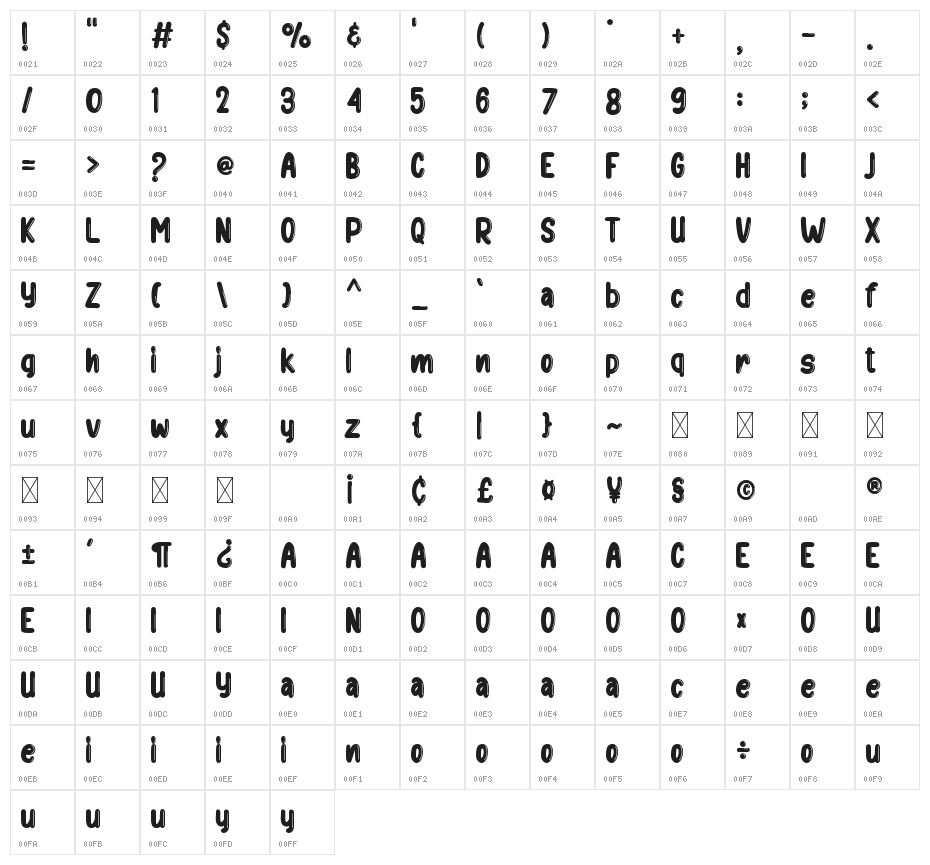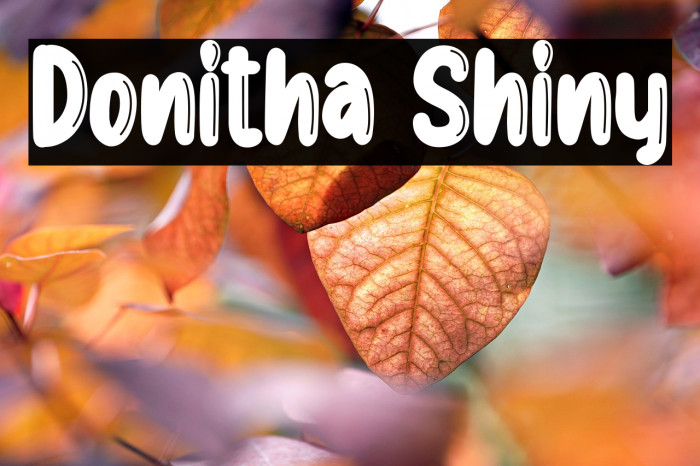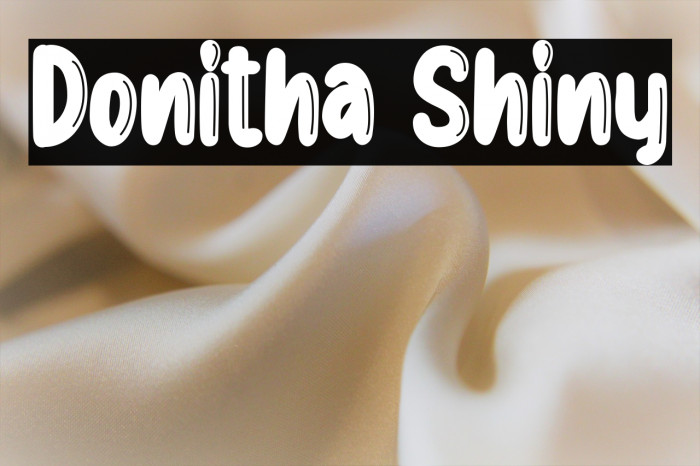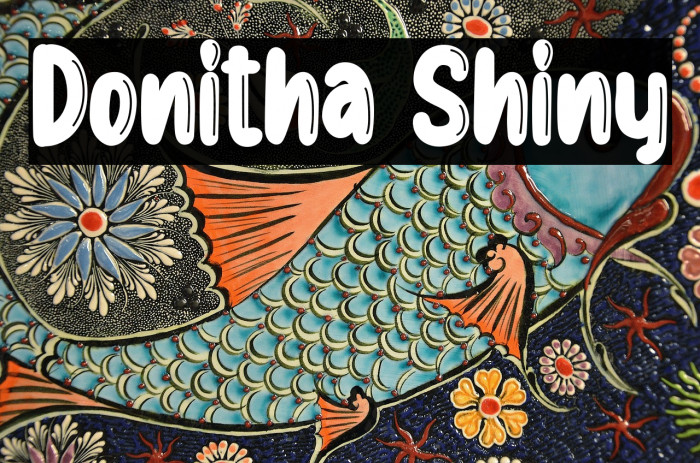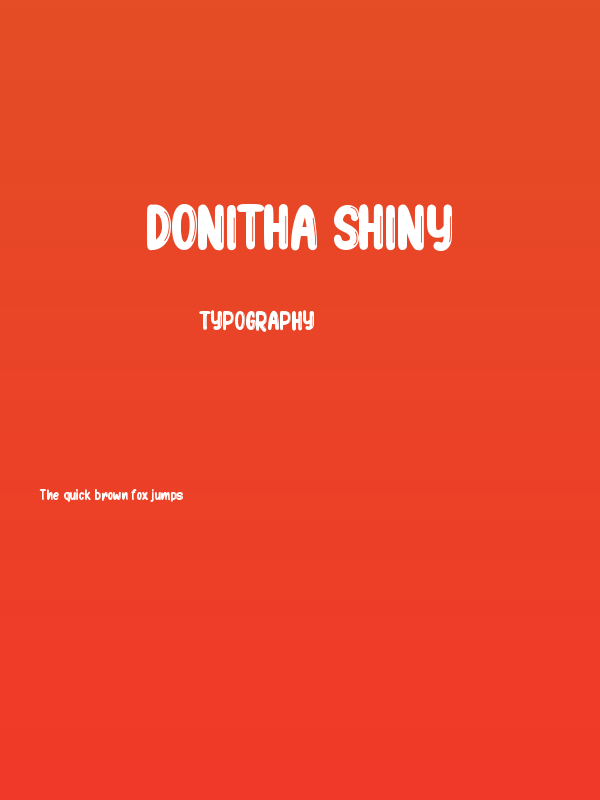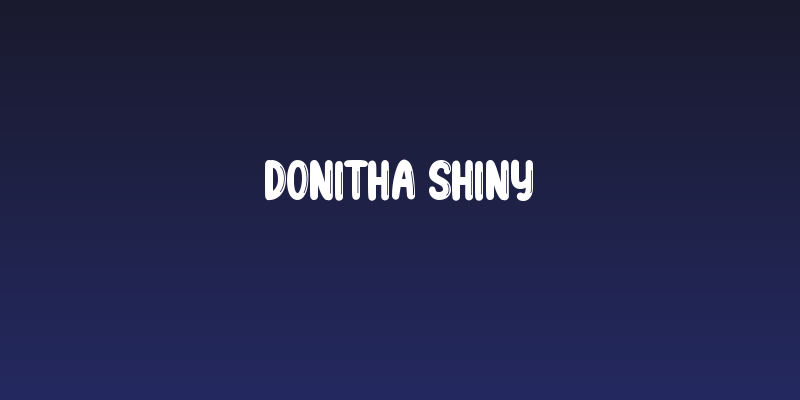
Donitha Shiny Font
Donitha Shiny Description
A bold, playful font with a shiny appearance, featuring rounded edges and a decorative style.
| Overall Style | Playful, Decorative |
| Proposed Projects | Children's books, playful branding, posters. |